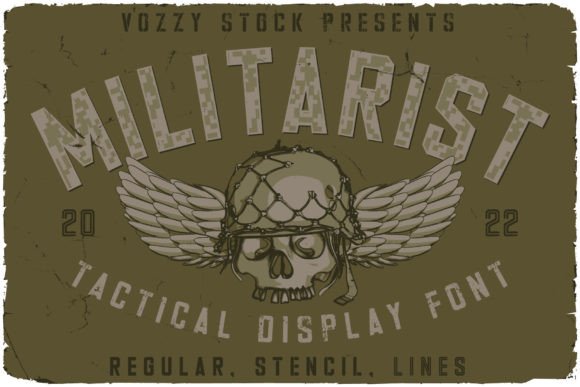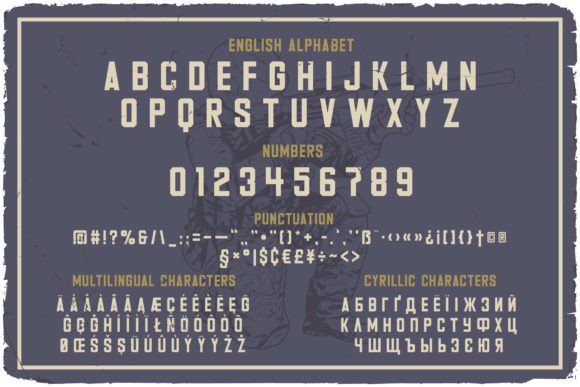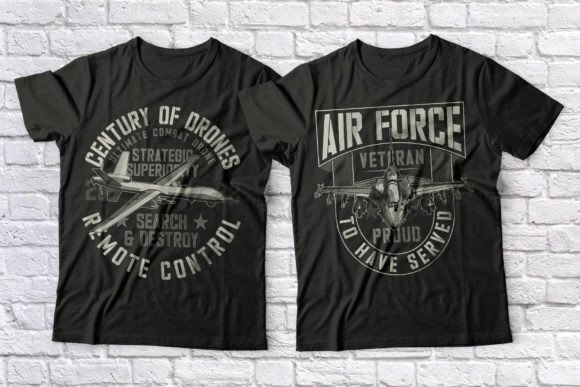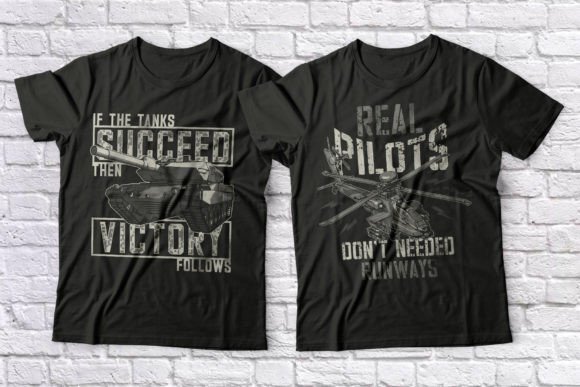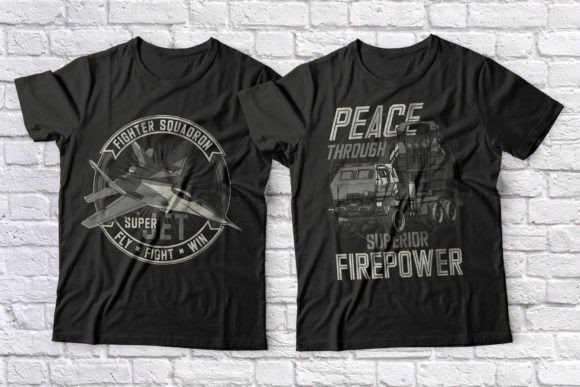
Militarist Font
Militarist is a bold and assertive display font. Strong and masculine, this font is perfect for headlines, posters, banners, apparel, or anything that requires daring typography.